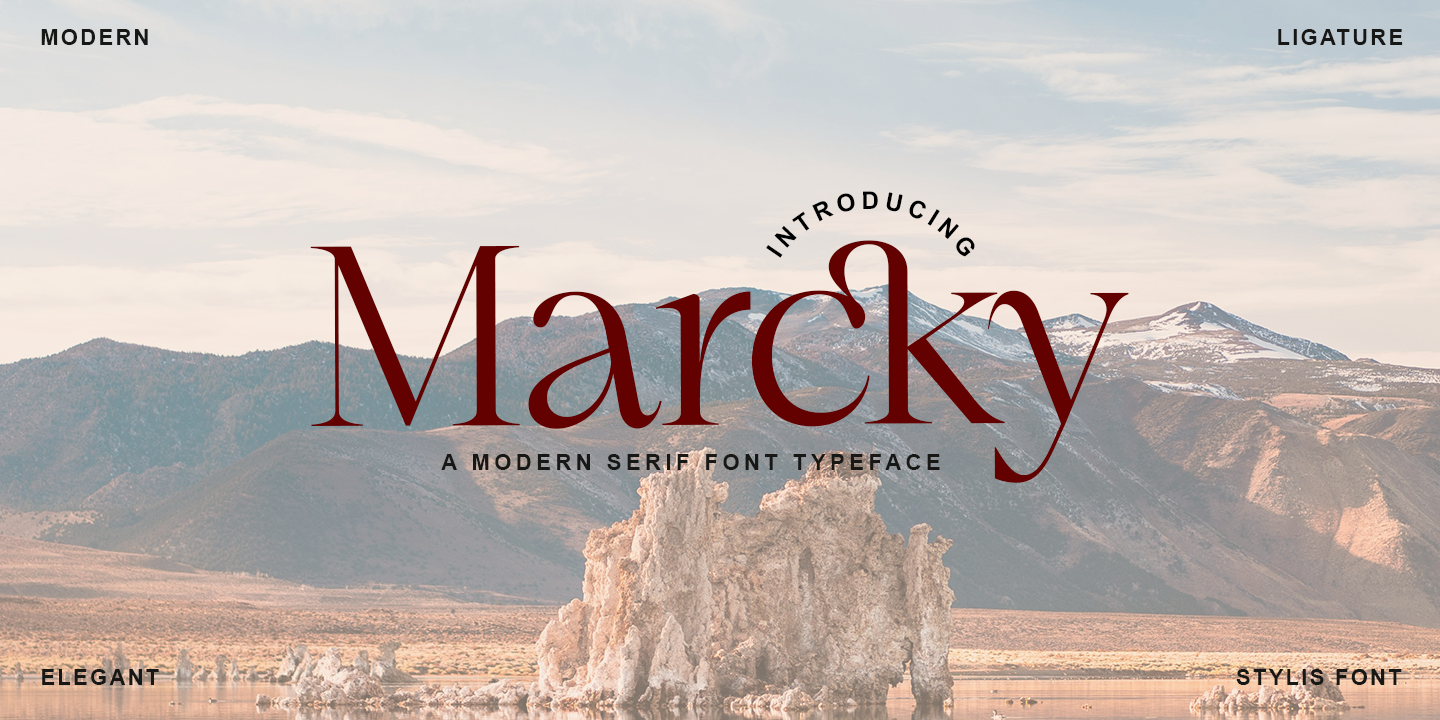
Marcky Font is perfect for modern corporate identity, clean tech startup branding, professional presentation materials, contemporary magazine layouts, sleek business cards, minimalist website design, industrial design documentation, architectural firm marketing, digital interface typography, and sophisticated projects that demand clarity, professionalism, and modern aesthetic appeal.
What makes Marcky Font so exciting is its perfect balance between geometric precision and humanistic warmth that creates exceptional readability while maintaining distinctive contemporary character. This typeface embodies modern design sophistication, featuring carefully crafted letterforms with subtle personality that prevents monotony while ensuring maximum clarity across all applications and maintaining professional credibility in business environments.
Marcky Font family includes comprehensive professional variations: Regular, Bold, Light, Thin, Medium, Semi Bold, Black, Italic, Condensed, and Extended versions. Each style maintains the font's inherent modern clarity while offering different levels of visual hierarchy and impact, providing designers with extensive flexibility for creating cohesive brand systems that work seamlessly across diverse applications.
The contemporary appeal of Marcky Font Free Download makes it exceptionally suitable for forward-thinking businesses and modern brands. This font successfully communicates reliability and innovation while maintaining approachable readability, making it ideal for companies that want to appear both professional and accessible. Its versatile nature performs excellently across digital platforms and print materials, while its distinctive modern character helps brands establish credibility and trust with audiences seeking quality and dependability in today's competitive marketplace.